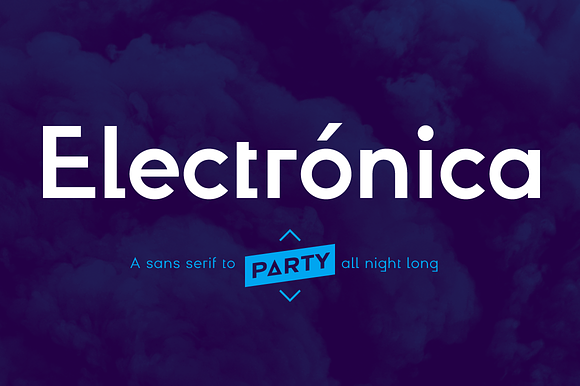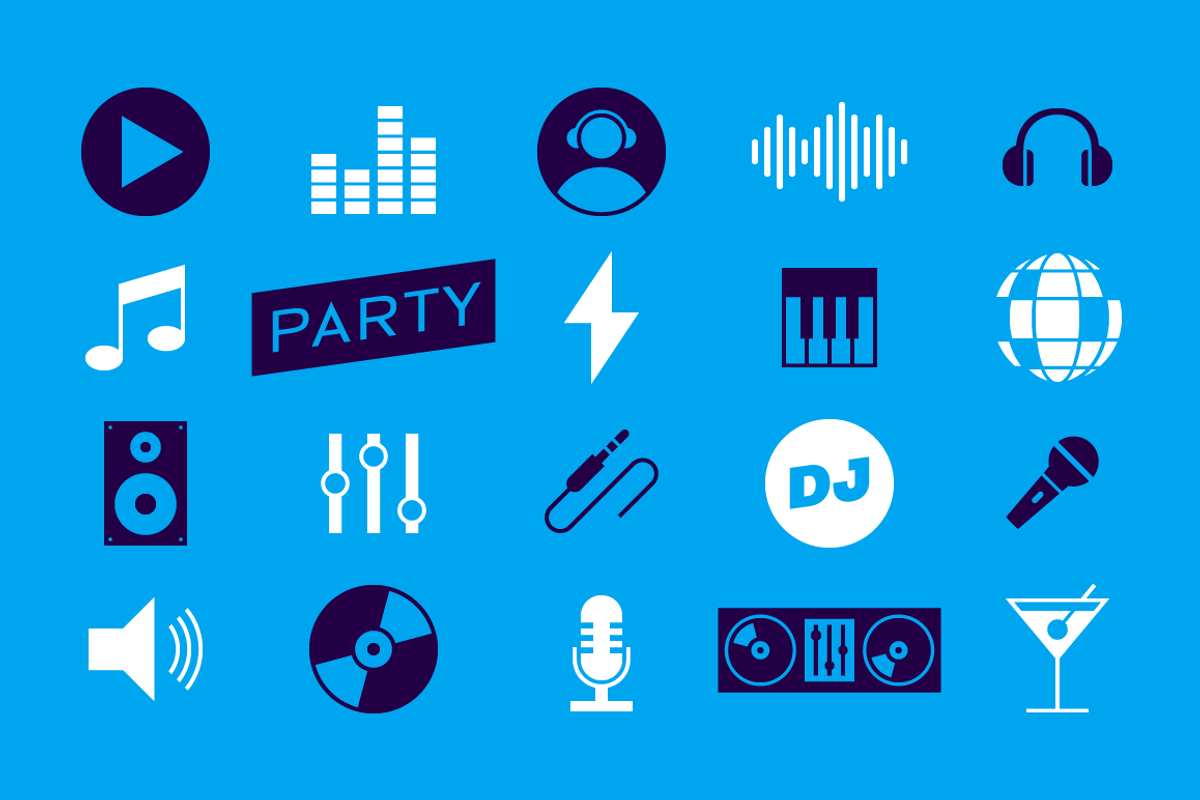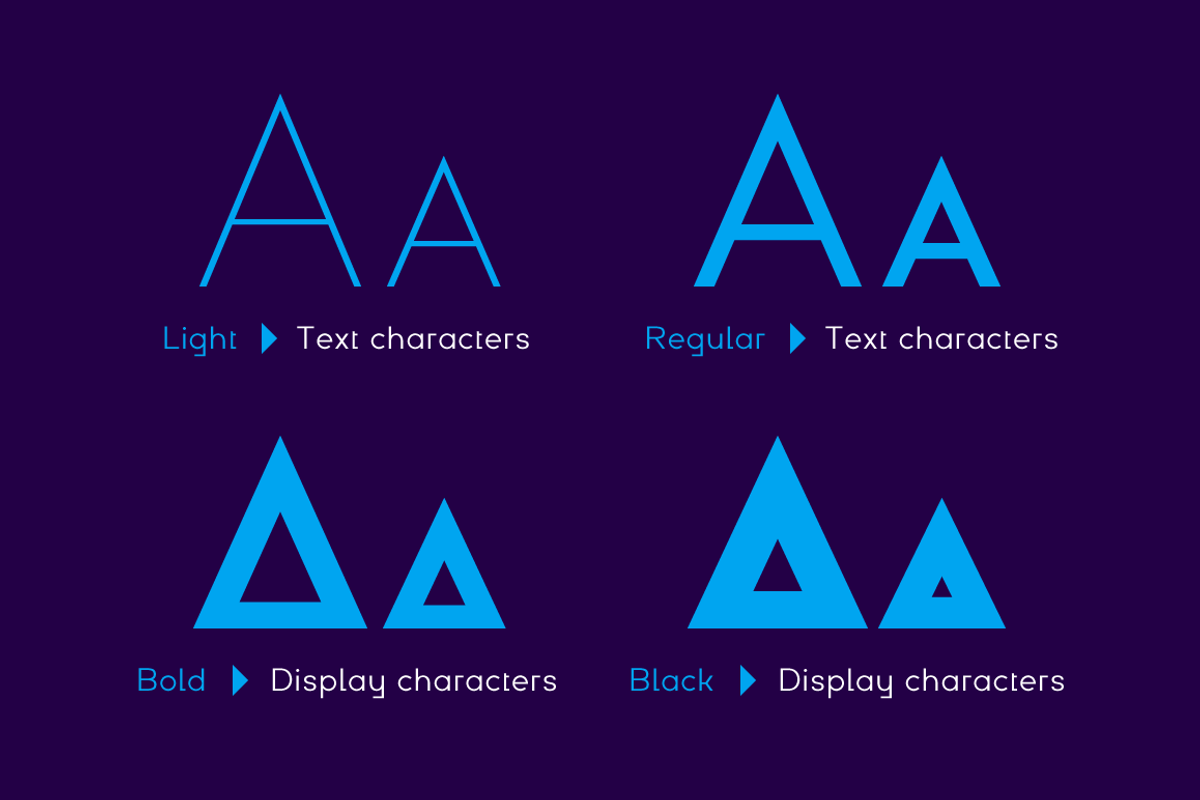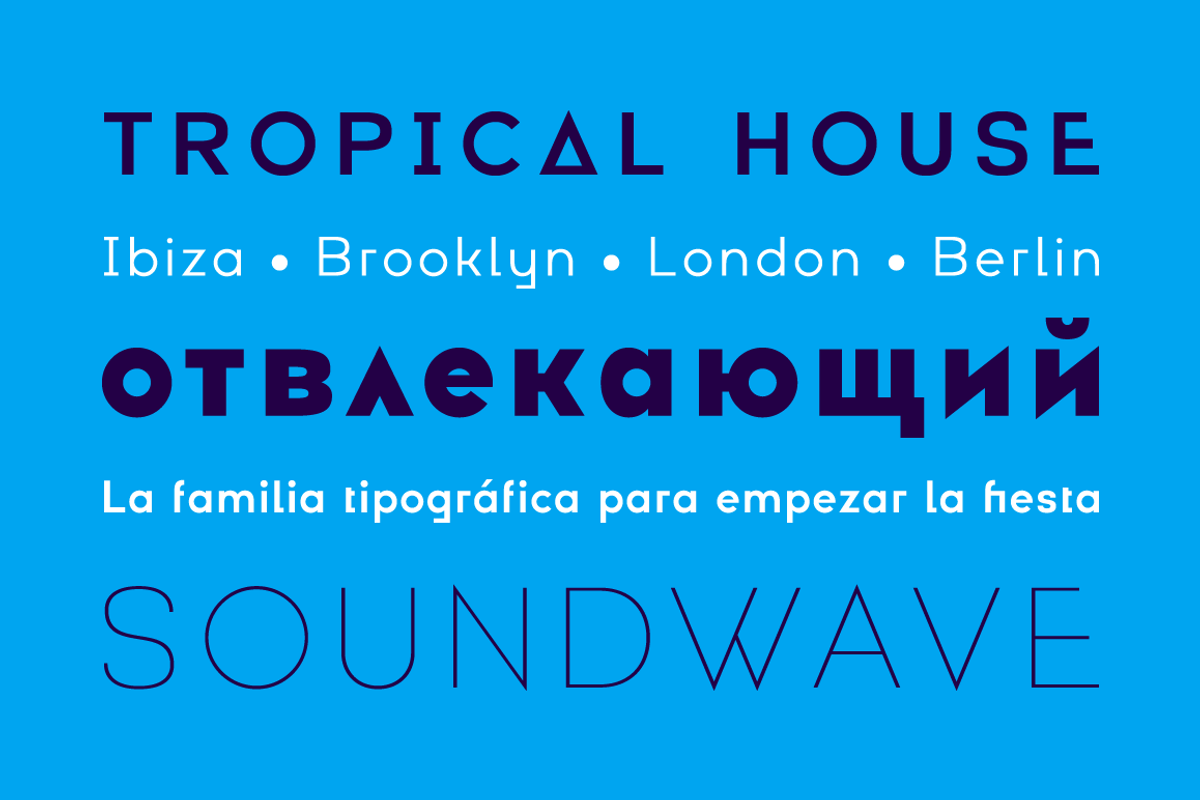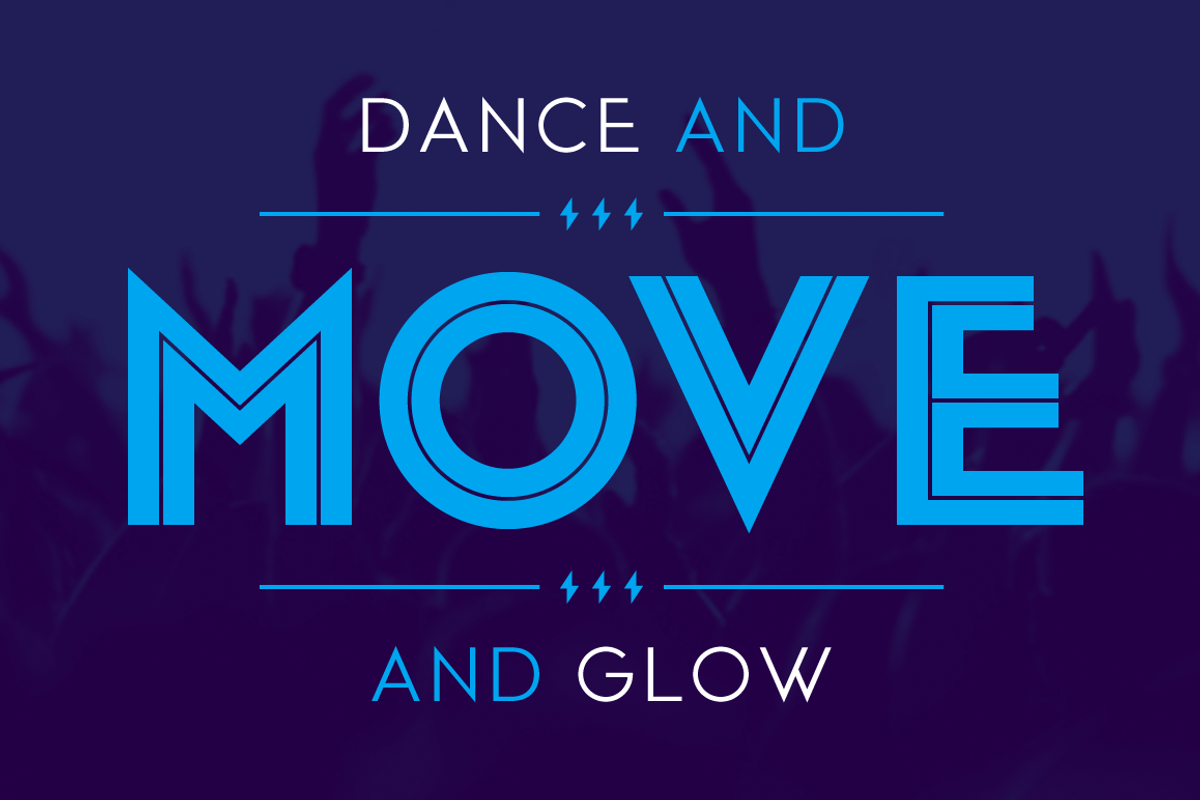
Electronica Font Family
Designer: Pablo Balcells
Electrónica font family has been designed for Graviton Font Foundry by Pablo Balcells in 2019. It is a rounded, geometric sans serif typeface with display details and sharp, playful shapes for a fun and laid back usage. Electrónica has been conceived to be most suitable for logos, headlines and display design pieces as well as short length text blocks.
Electrónica consists of 12 styles, 8 of which containing small caps and glyph coverage for several language and 4 of which are free.